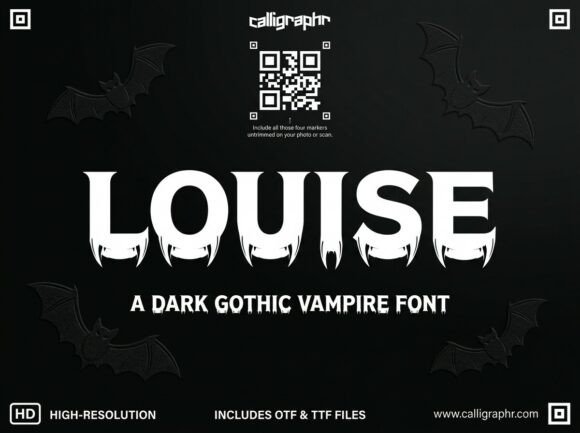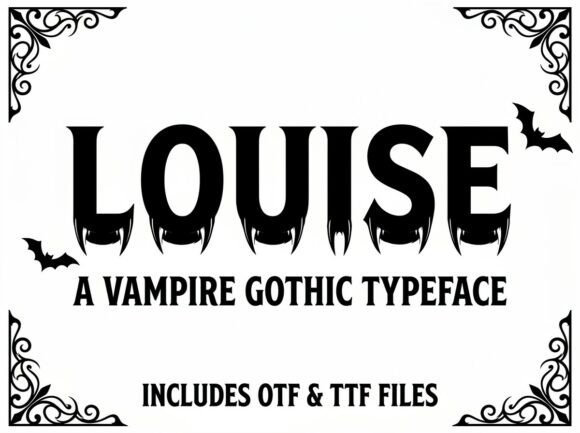
Introduction to Louise Font
Have you ever been brainstorming for a creative project and suddenly, the perfect idea hits you? The excitement is palpable, and you can’t wait to bring it to life. For designers, this moment is all too familiar, and it’s often what drives us to push the boundaries of what’s possible. One essential element that can elevate your design to the next level is the right font. That’s where Louise Font comes in – a stunning decorative display font designed to be the center of attention.
Louise Font is a game-changer for designers looking to add a touch of sophistication and elegance to their projects. With its unique artistic elements and strong visual personality, this font is perfect for creators who want to break away from the ordinary. Whether you’re working on a bold headline, artistic logo, or creative packaging, Louise Font is sure to make a lasting impression.
Louise Font
- High-quality design resource ideal for creative projects, offering a unique and elegant aesthetic.
- Perfect for use in logos, branding materials, and other design elements where a touch of sophistication is required.
Honest Review: Louise Font
I recently had the chance to work with Louise Font, and I must say it was a delightful experience. This design resource is perfect for any creative project that requires a touch of elegance and sophistication.
- Transparent background for easy use in design applications
- Wide range of styles and customization options
- Some users may find the font too formal or conservative for certain projects
- Limited support for certain languages or character sets
Overall, I’m very impressed with Louise Font. It’s a great addition to any designer’s toolkit, and I would highly recommend it to anyone looking for a high-quality, versatile font.
The Louise Font is a versatile design resource ideal for various creative projects. With its elegant style and transparent background, it can elevate any design to the next level. To get the most out of this high-quality font, follow these steps.
Here are some tips to get the most out of the Louise Font:
- Use the font for titles, headings, and body text to create a consistent design aesthetic.
- Combine the Louise Font with other design elements, such as images and graphics, to create a visually appealing design.
- Experiment with different font sizes, colors, and styles to create a unique design look.